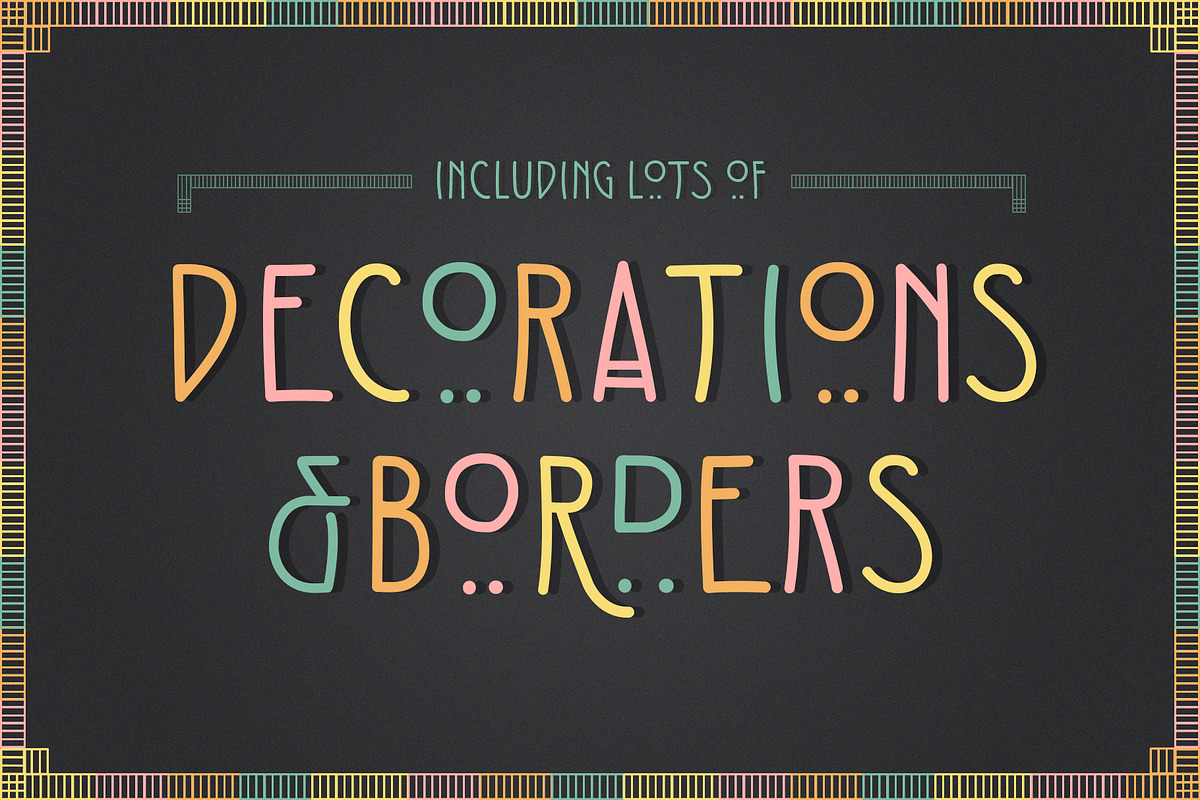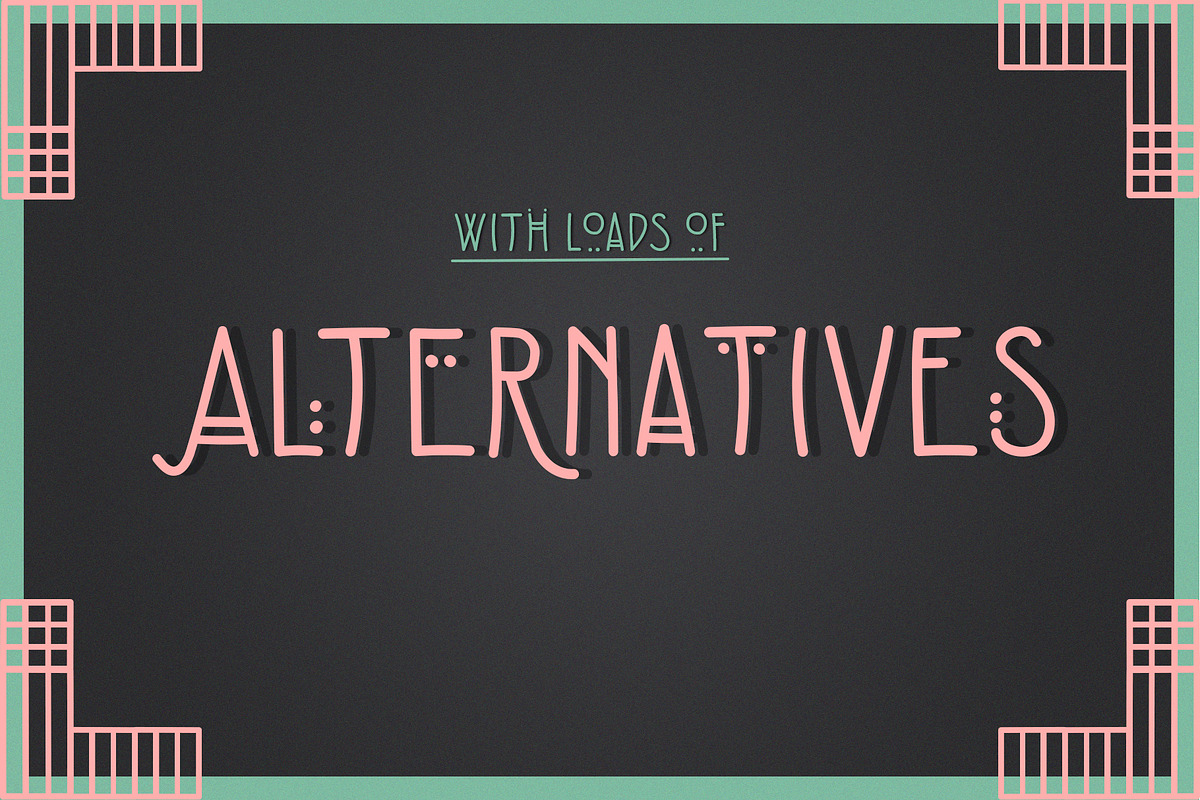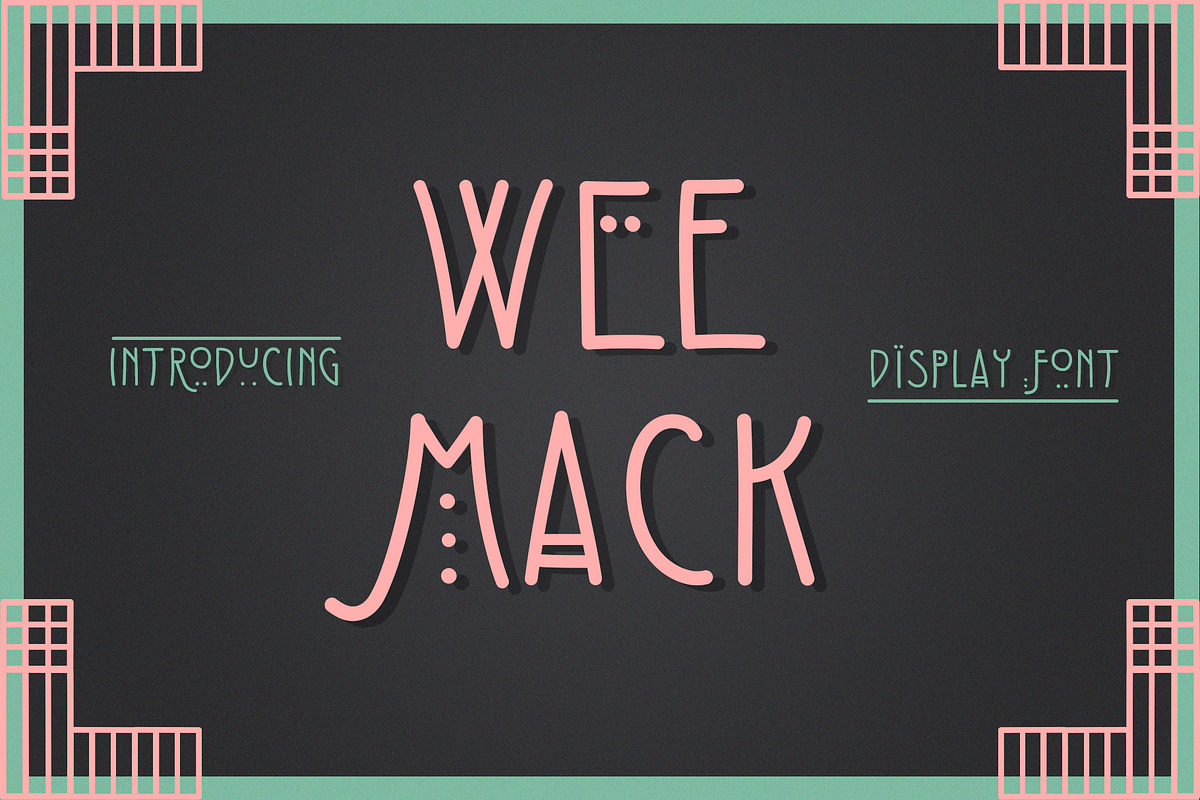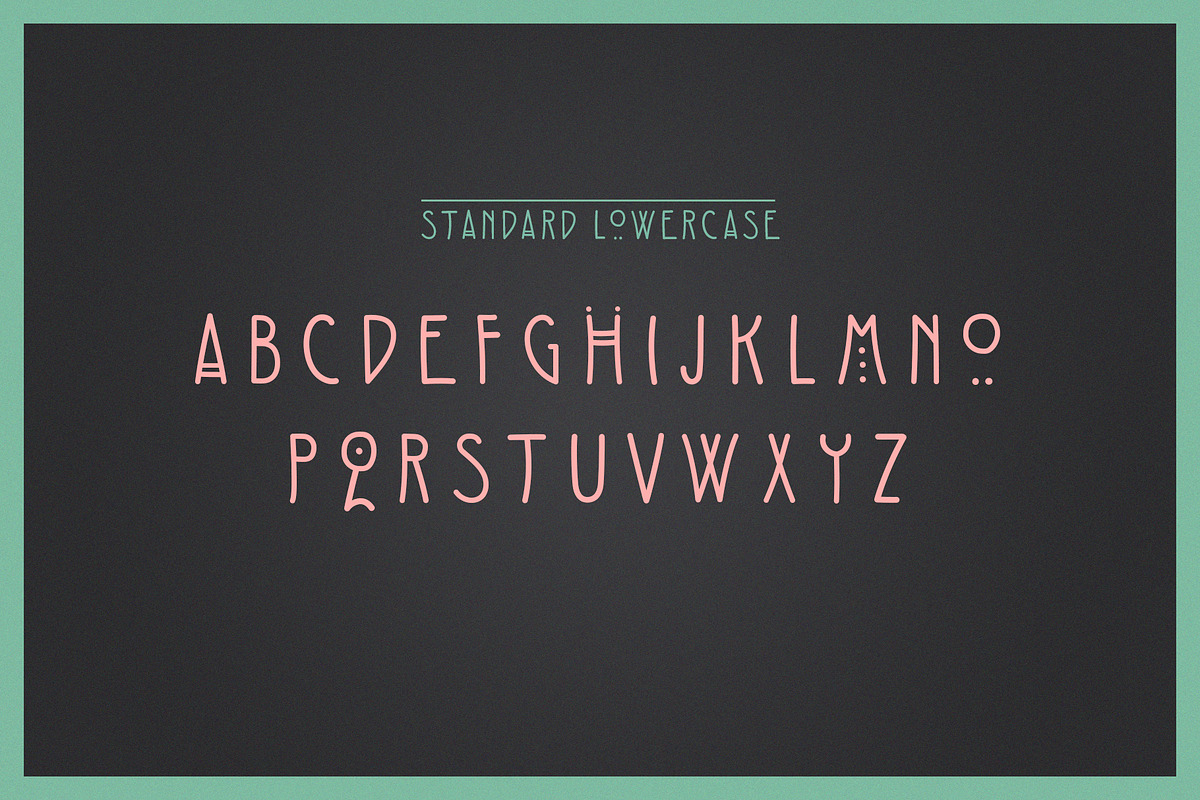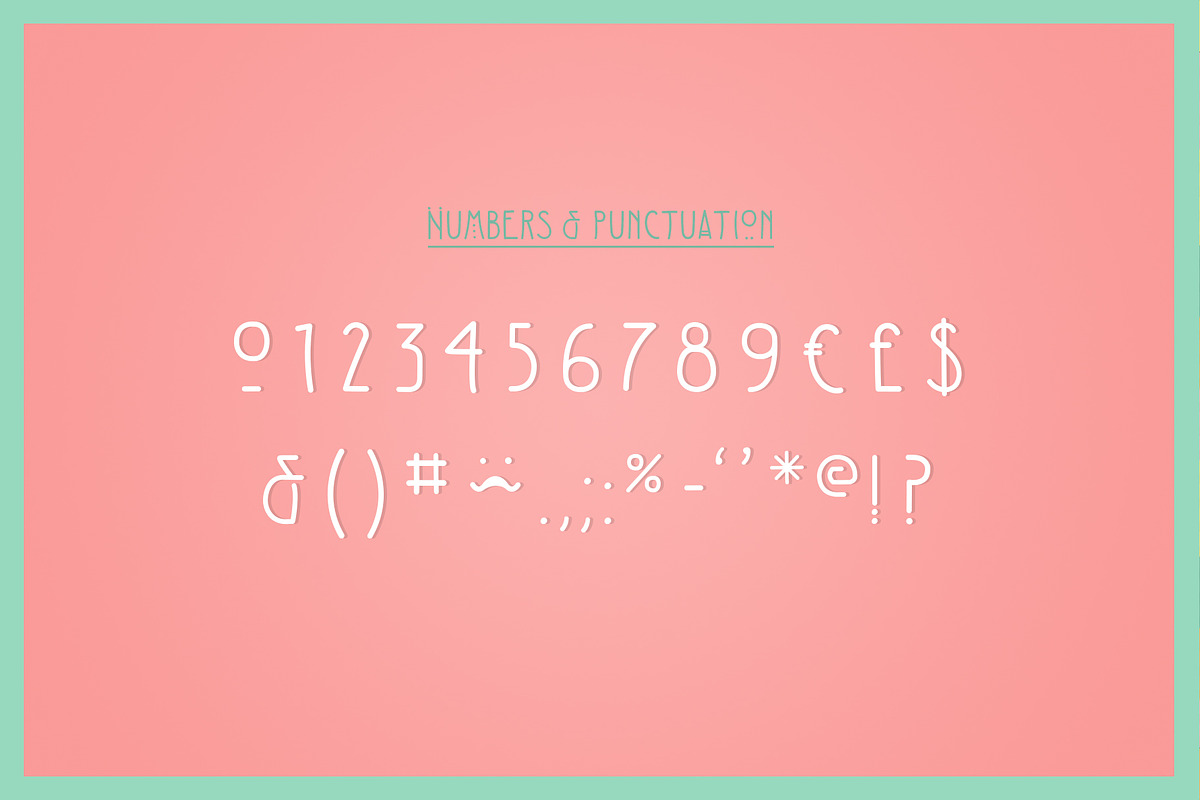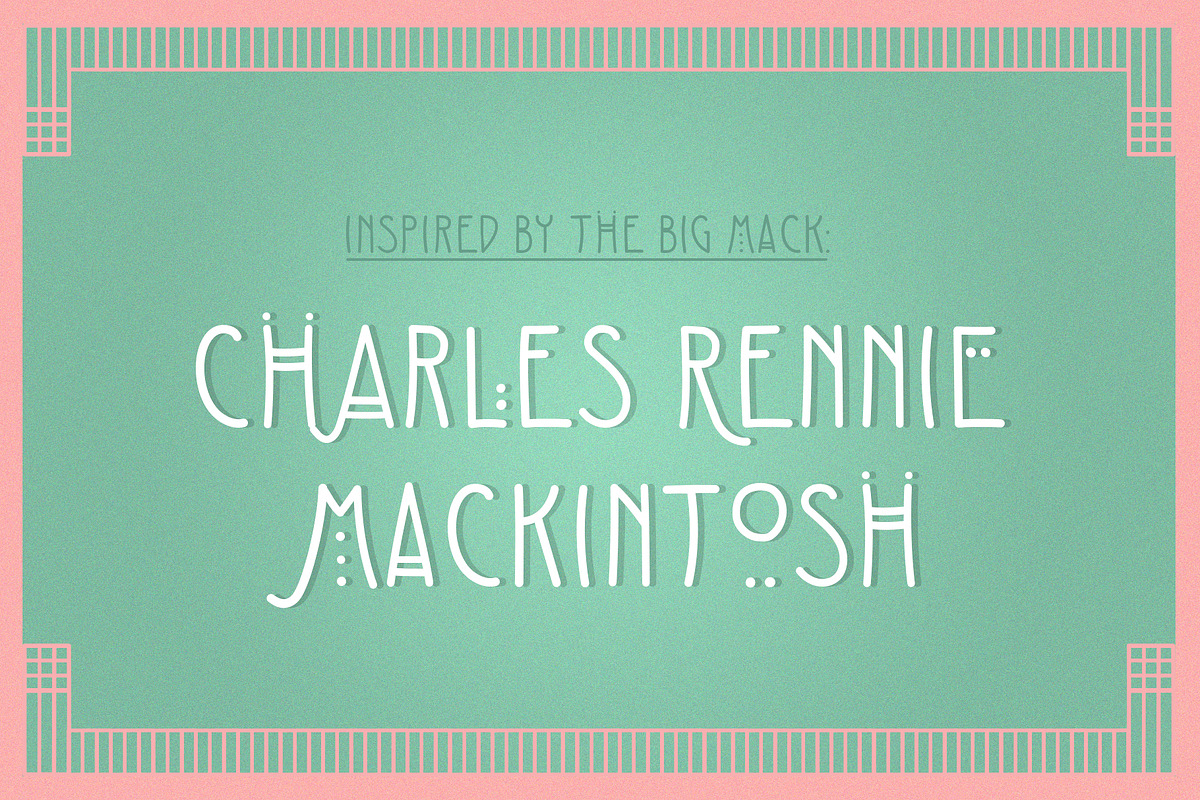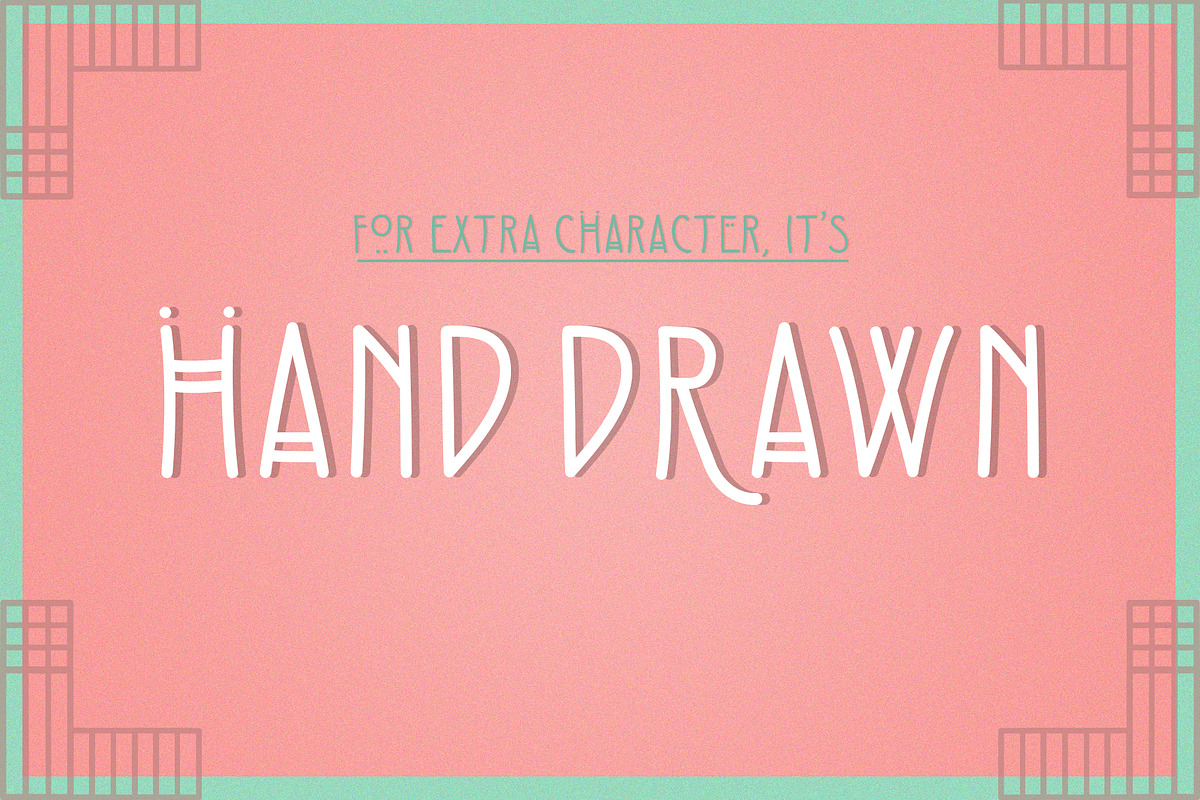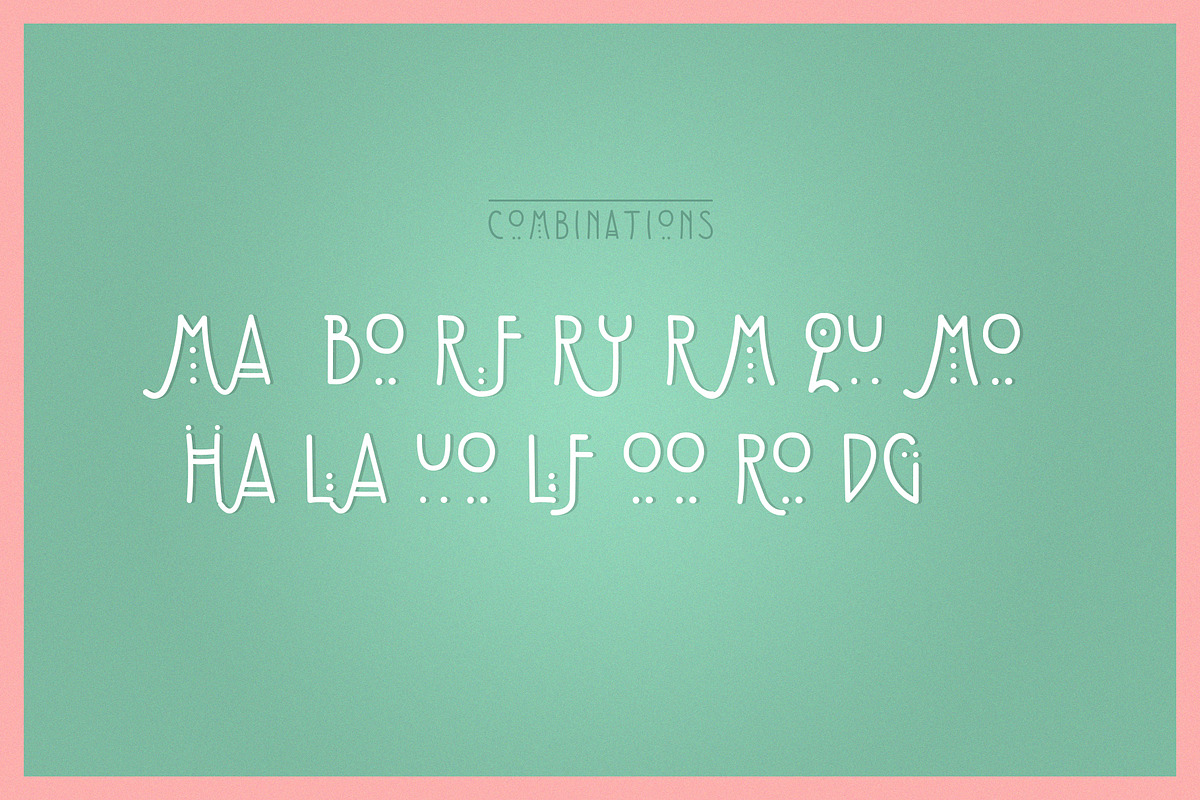
The Wee Mack Display Font
Wee Mack is a playful uppercase Display font inspired by imagining the doodles of Charles Rennie Mackintosh as a boy. With a standard version (lowercase) and a decorative (uppercase) version, the Wee Mack is quirky font that is both Elegant and fun, and could bring a distinct vintage look to anything from Book covers to Invitations.
The font includes Decorative design extras that are based on some of the Mack's work and inspired by his hometown Glasgow. These can easily be made into borders, illustrations and backgrounds to make a complete design with the font alone!
Standard version (lowercase)
Decorative version (uppercase)
Numbers and standard punctuation
Special character combinations to make key words stand out
Decorative design extras to make borders and illustrations (font characters listed in guide)